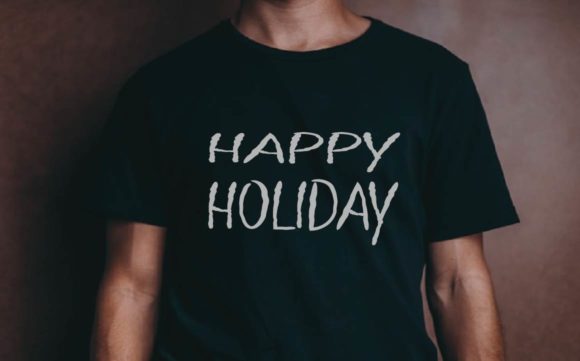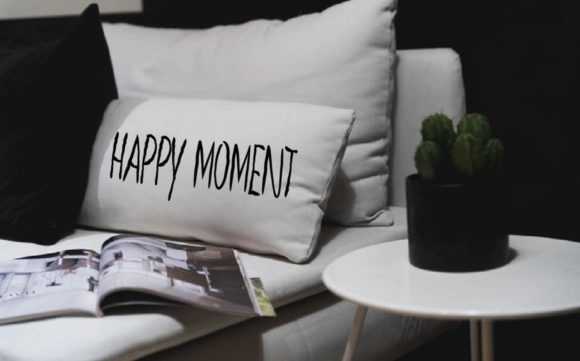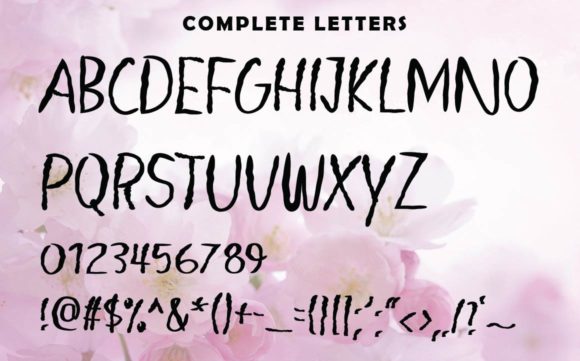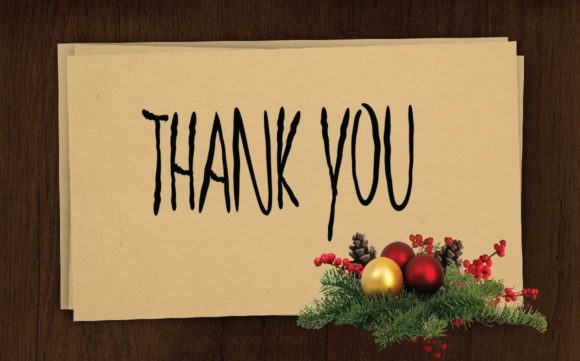
Unlock the Enchantment of Christmas with the Christmas Magic Font
As the holiday season approaches, designers and crafters are on the lookout for the perfect elements to infuse their creations with festive charm. One of the most effective ways to add a touch of magic to your holiday designs is with a captivating font. Introducing the Christmas Magic Font, a simple, cute, and elegant handwritten font that is sure to elevate your creative projects to new heights.
The Essence of Christmas Magic Font
Christmas Magic is a thoughtfully designed font that embodies the spirit of the holiday season. Its simple, yet elegant handwritten style makes it versatile enough to be used in a wide range of applications, from holiday cards and invitations to festive posters and social media graphics. The font’s charm lies in its ability to convey warmth, joy, and a sense of wonder, making it the perfect addition to any Christmas-themed design.
Why Choose Christmas Magic Font?
- Easy to Read and Write: Despite its elegant appearance, the Christmas Magic Font is highly legible, making it suitable for both short phrases and longer texts. This ensures that your message is conveyed clearly, without compromising on style.
- Versatile: Whether you’re designing for digital platforms or creating physical crafts, this font adapts seamlessly. Its flexibility allows you to use it in various contexts, from professional design projects to personal crafting endeavors.
- Festive yet Elegant: The Christmas Magic Font strikes the perfect balance between festive cheer and elegance. It adds a holiday touch to your designs without overpowering them, ensuring your creations remain sophisticated and appealing.
Applications of Christmas Magic Font
The possibilities are endless when it comes to using the Christmas Magic Font. Here are a few ideas to get you started:
- Holiday Cards and Invitations: Create personalized and enchanting holiday cards and invitations that set the tone for your festive celebrations.
- Social Media Graphics: Stand out on social media with festive graphics that incorporate the Christmas Magic Font. It’s a great way to engage with your audience and spread holiday cheer.
- Festive Posters and Banners: Design eye-catching posters and banners for holiday events, sales, or decorations. The Christmas Magic Font will add a touch of elegance and festivity to your designs.
- Crafting Projects: If you’re into crafting, this font can be a wonderful addition to your DIY projects, such as hand-made cards, gift tags, or scrapbooking.
| Font Name | Christmas Magic Font |
| Author | Farz Studio |
The Christmas Magic Font is a delightful addition to any designer’s or crafter’s toolkit during the holiday season. Its simplicity, elegance, and festive charm make it the perfect choice for a wide range of applications. By incorporating this enchanting font into your holiday designs, you’ll not only save time but also ensure your creations stand out. So, why wait? Unlock the magic of Christmas with this wonderful font and let your creativity shine.